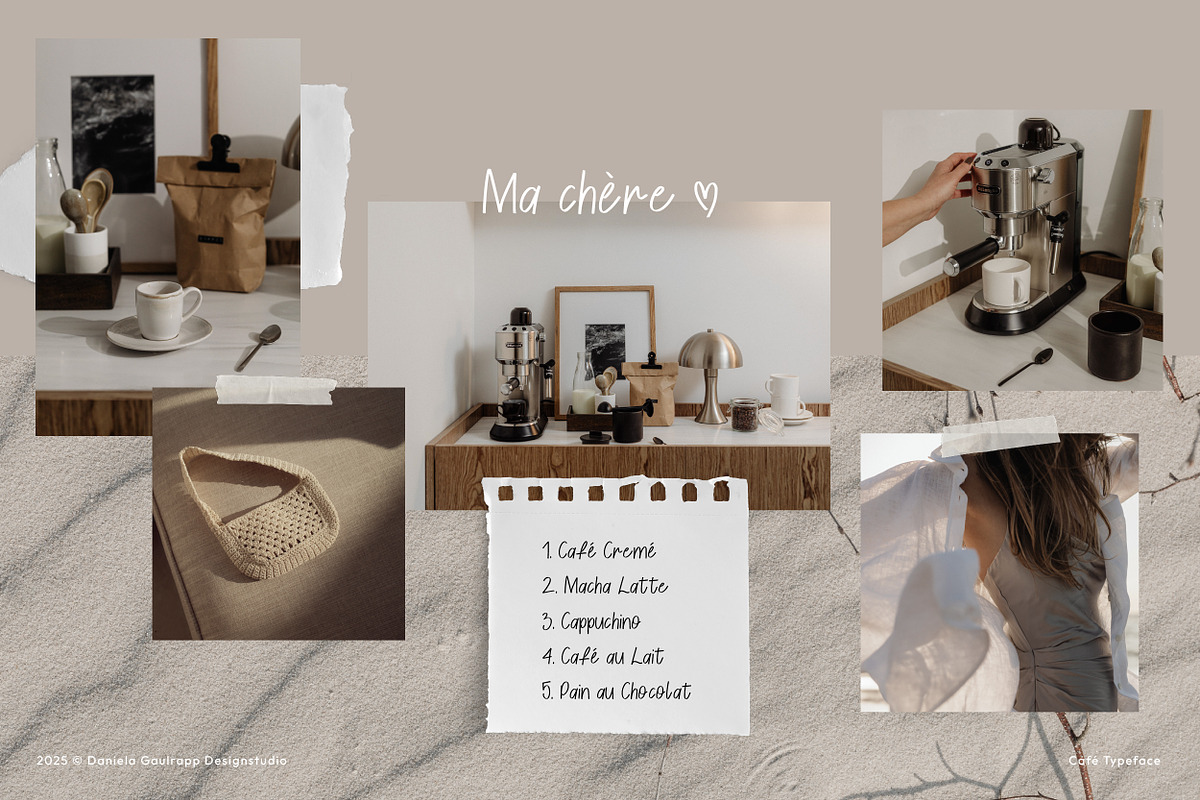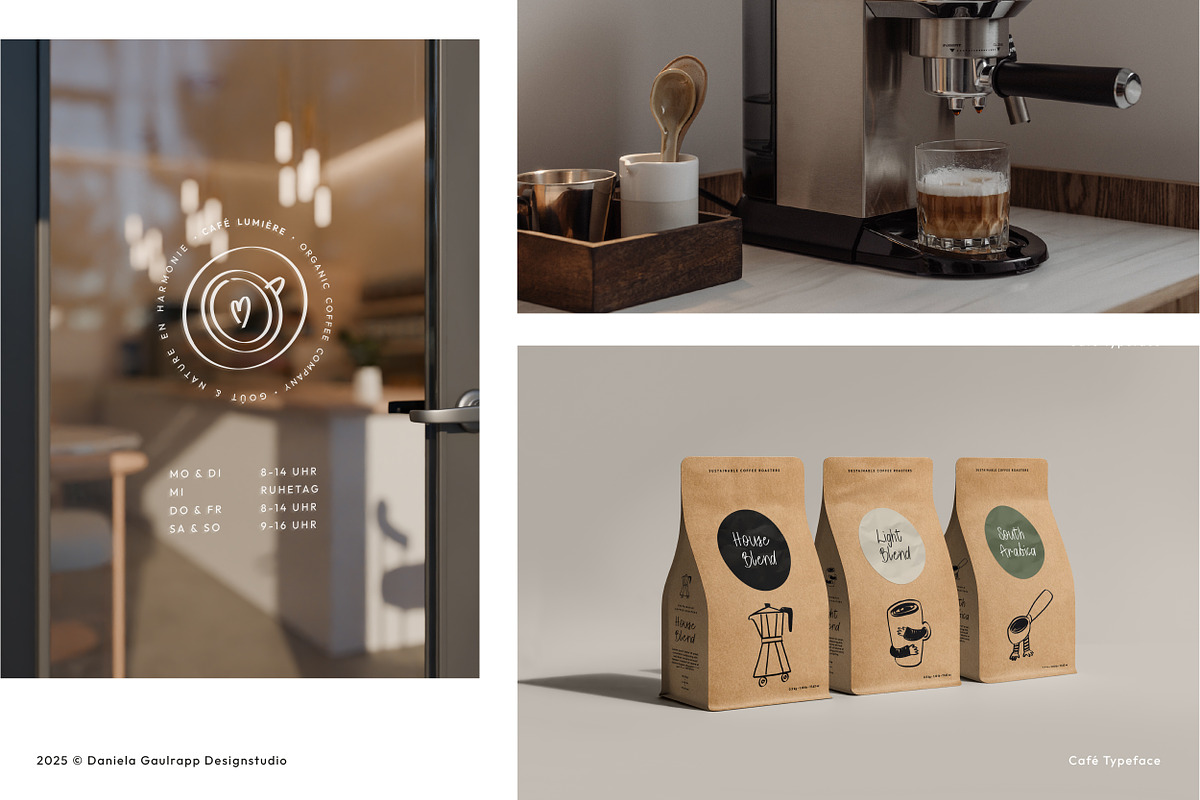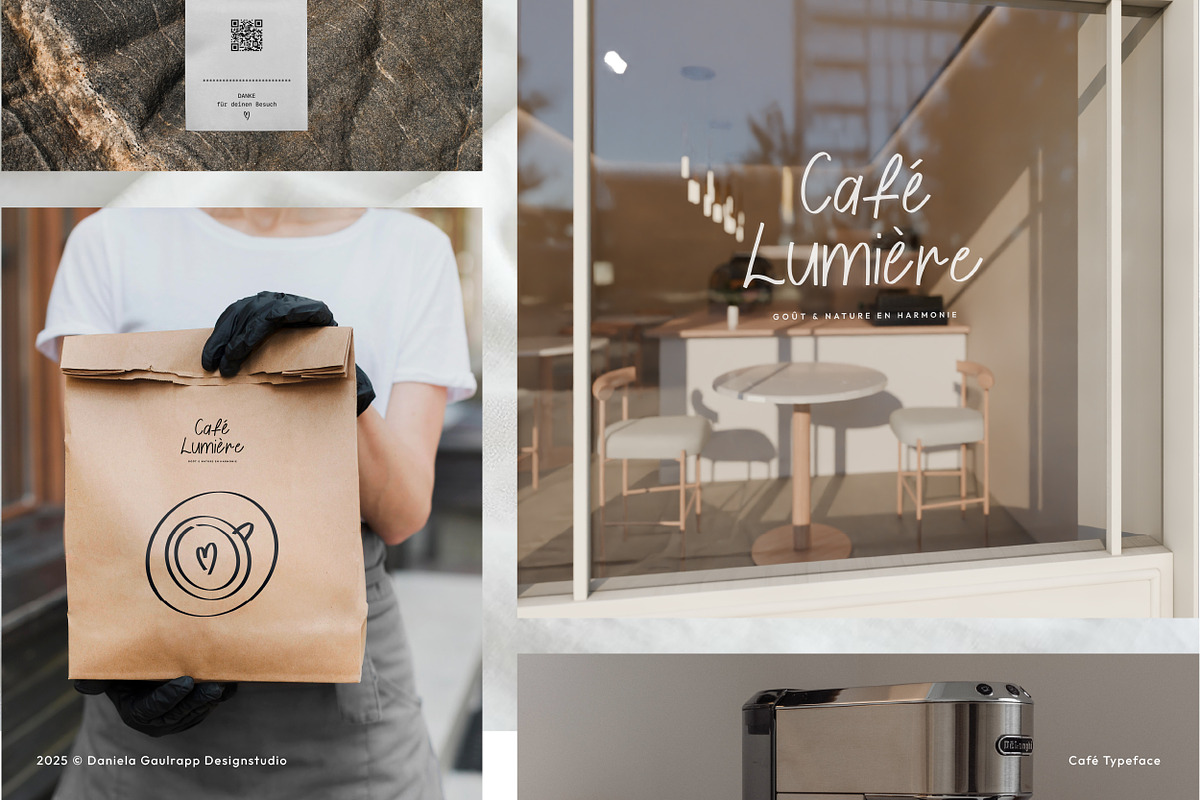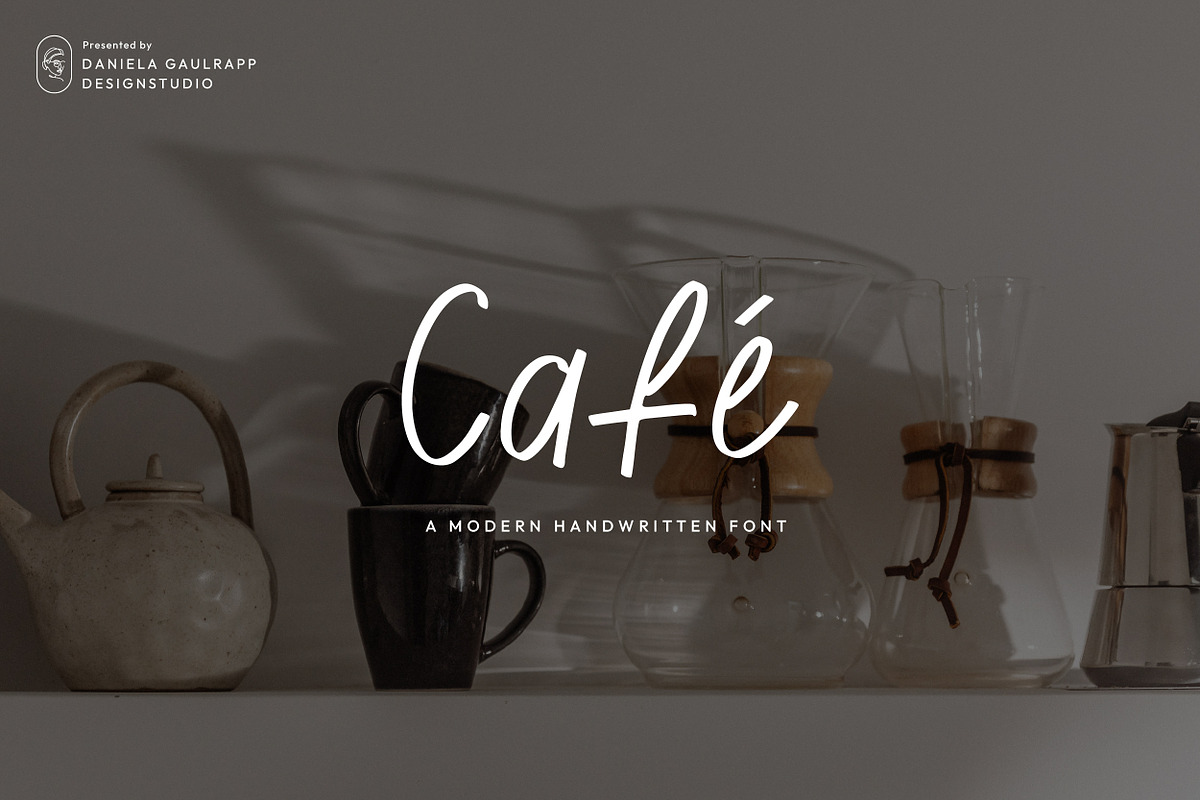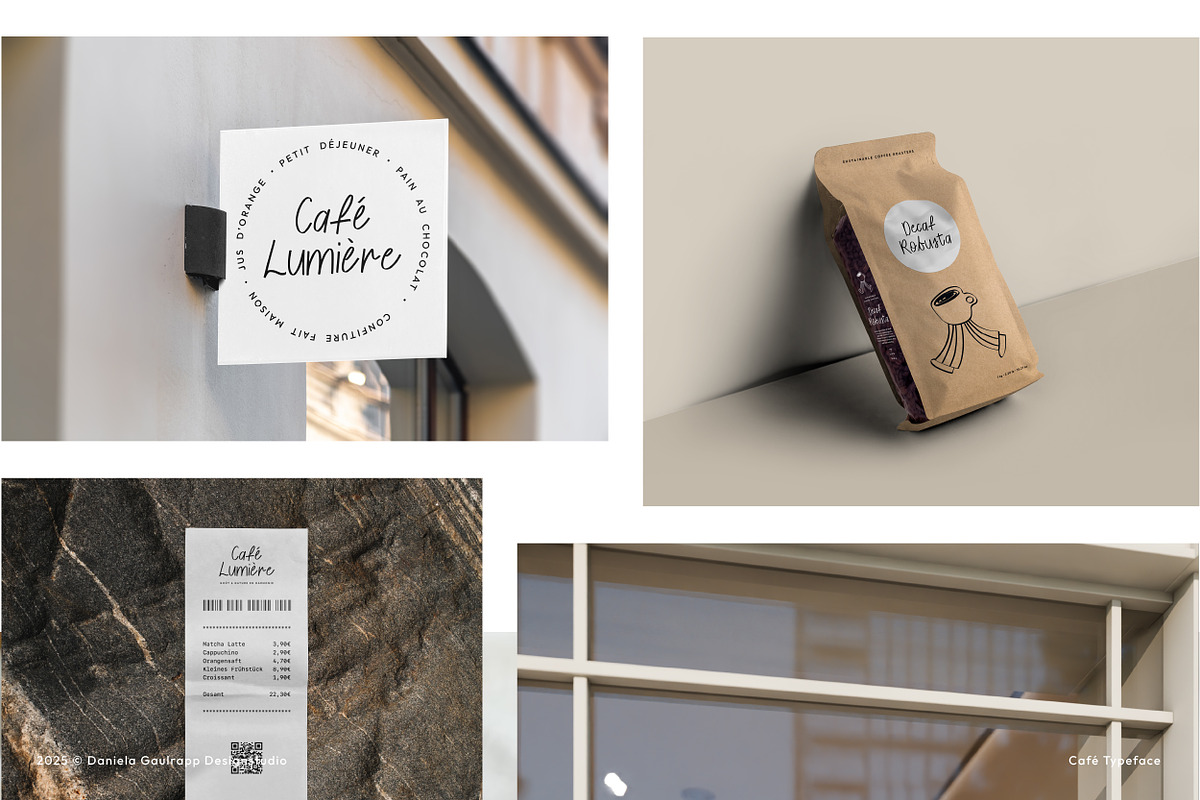
Café Handwritten Font
Café is a warm and inviting handwritten typeface that brings the charm of a cozy coffeehouse into your designs. With its modern yet casual letterforms, Café captures the feeling of handwritten notes, creative journaling, and relaxed branding.
Perfect for logos, packaging, social media, and lifestyle branding, this font adds a personal and approachable touch to any project. Whether you’re designing for a small business, a café, or your next passion project, Café delivers personality with ease.
Features: • Handcrafted, authentic look • Smooth curves and natural flow • Uppercase & lowercase letters • Numbers & punctuation • Multilingual support
Café is more than just a font – it’s a mood. Let it bring your brand story to life with character and warmth.